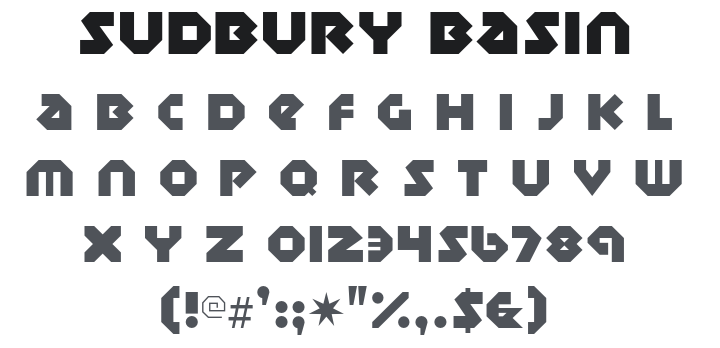
Sudbury Basin Font Family
About Sudbury Basin
Sudbury Basin is a minimalist octagonal industrial display typeface inspired by the Inco mining company logo — clean, chamfered letterforms where every corner is clipped at 45 degrees, giving it a brutalist, no-frills authority rooted in fundamental geometric reason. A 3D variant adds dimensional depth. Perfect for industrial branding, mining or engineering themes, tech logos, corporate signage, and any headline needing stripped-down, heavy-industry gravitas.